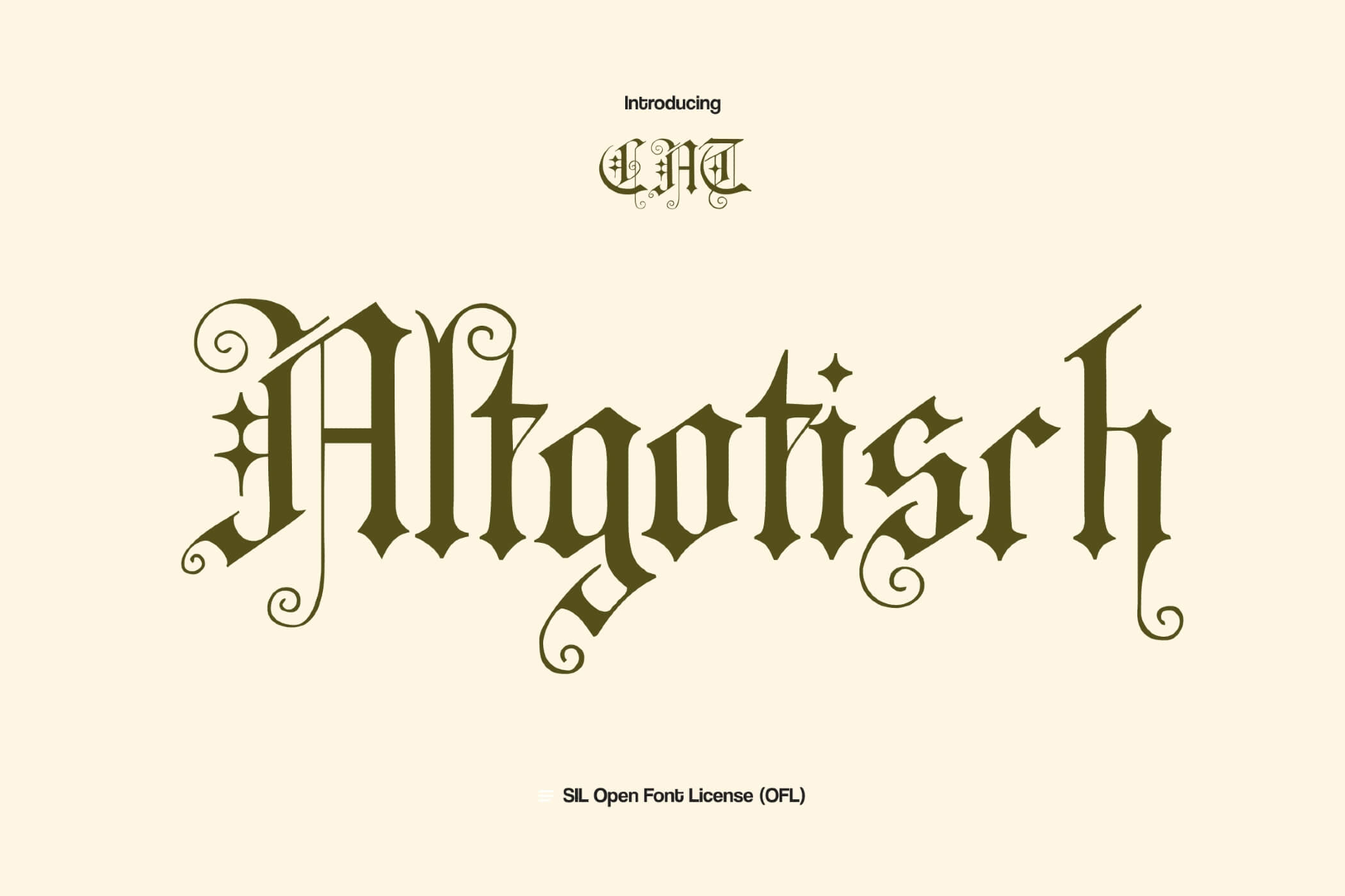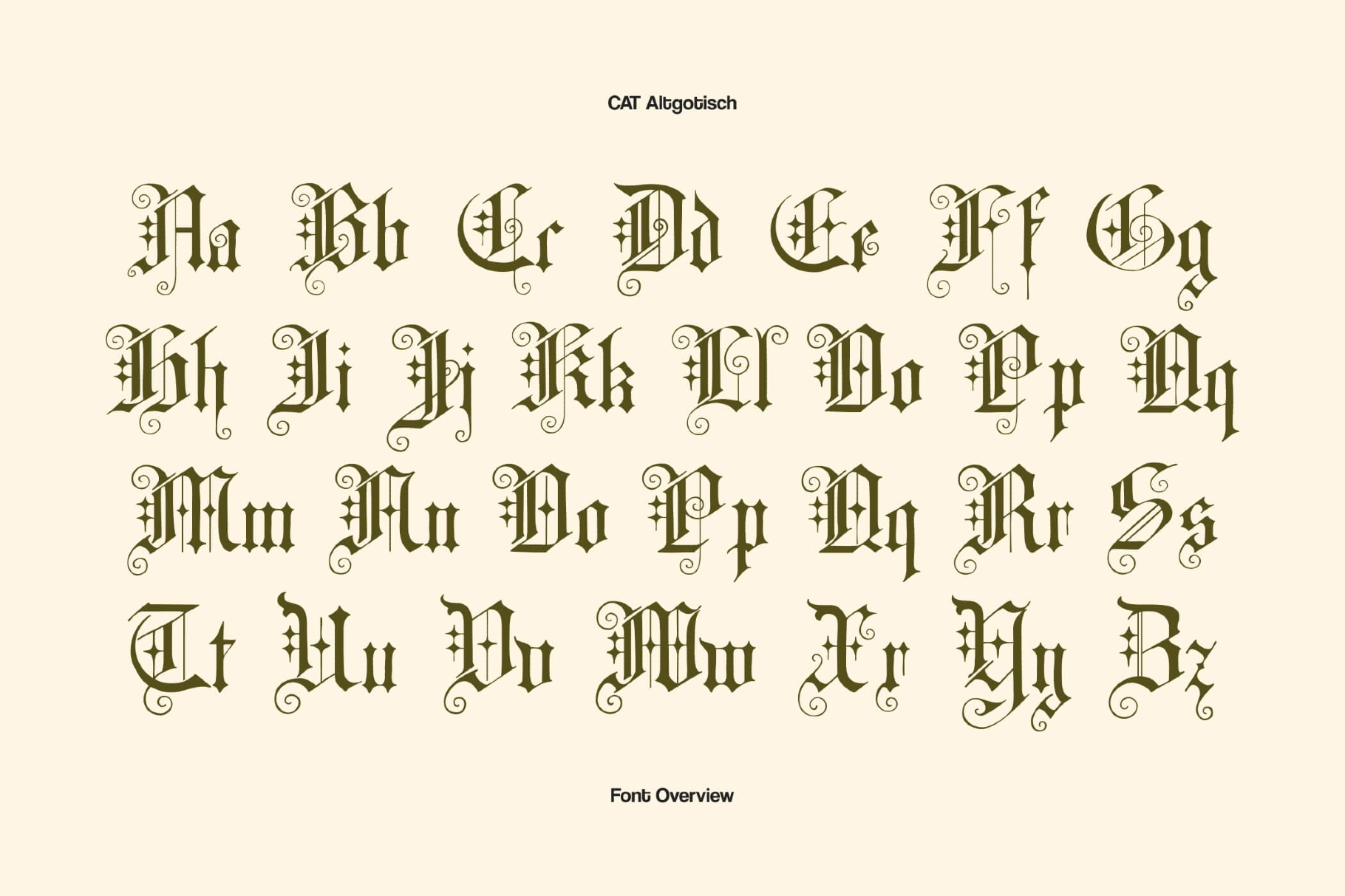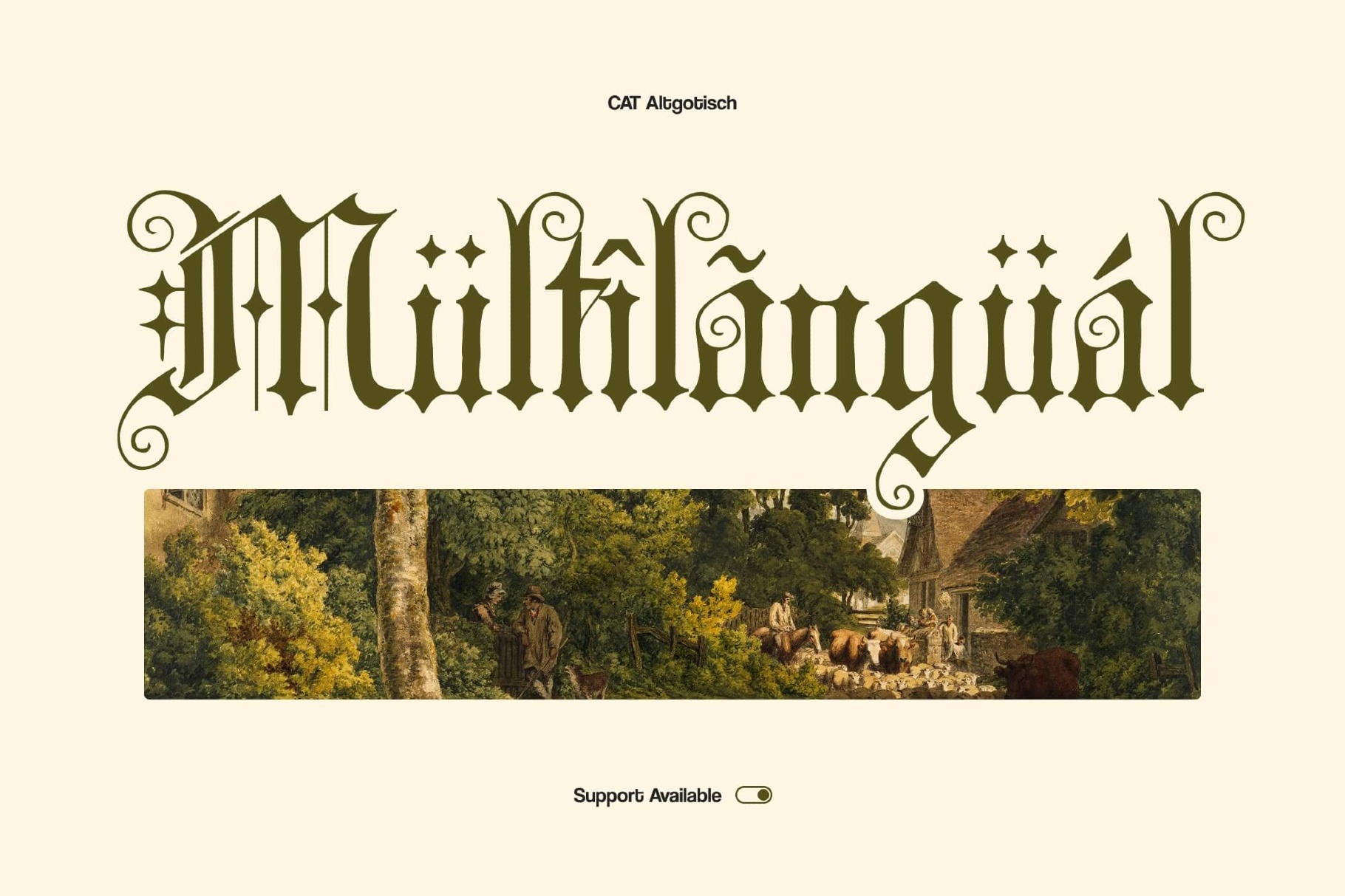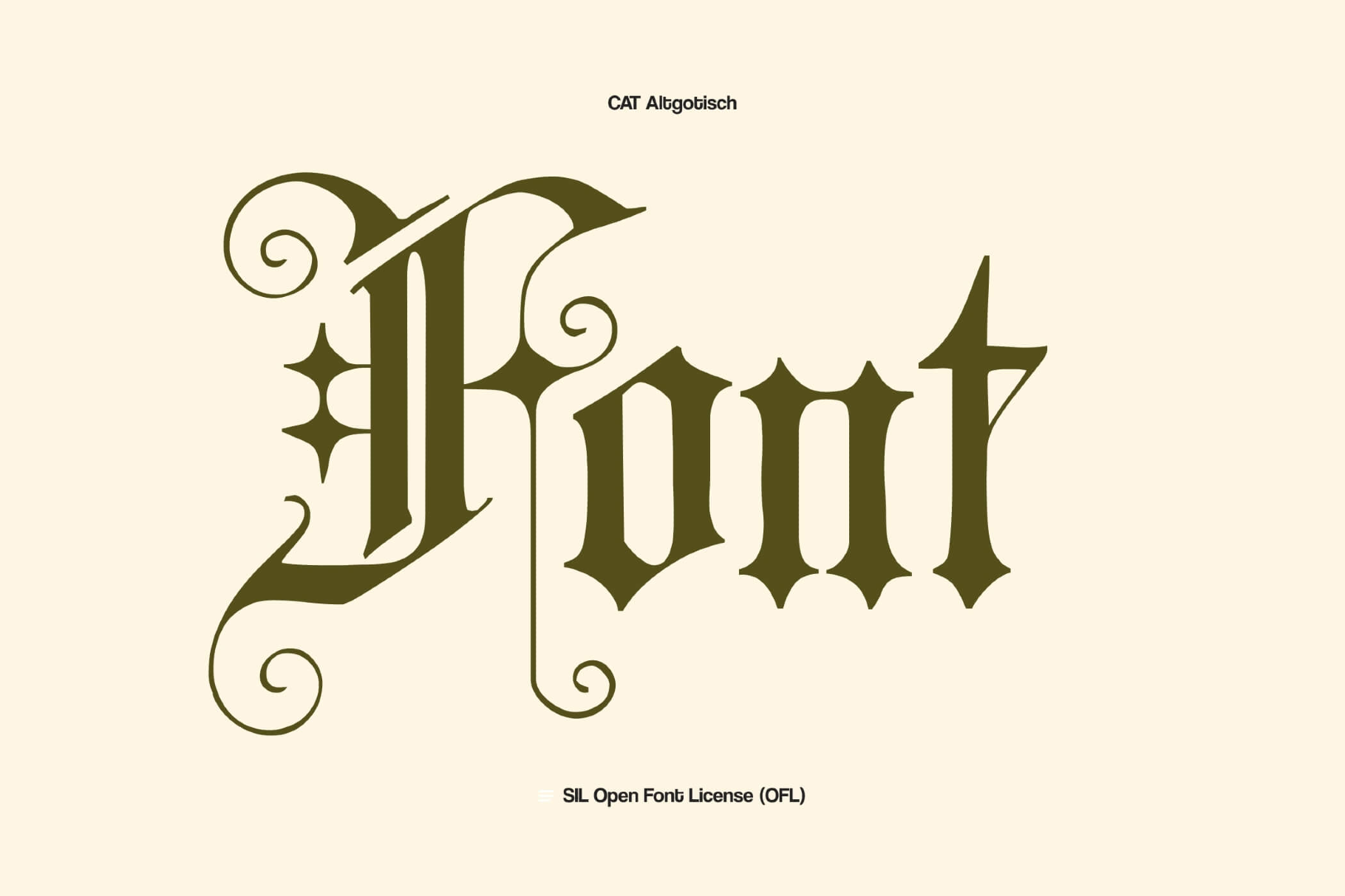
Altgotisch Blackletter Font
Altgotisch
Altgotisch follows late-19th-century decorative traditions, with elaborate curves, tight counters, and sharply broken strokes. The structure is strict and upright, while intricate terminals and blackletter flourishes highlight its richly historic appearance.
Uses:
- Book covers and title pages for historical novels, theology, and academic editions.
- Posters for classical concerts, organ recitals, and choral performances.
- Album artwork and logotypes for black metal, neofolk, and experimental music projects.
- Branding, signage, and menus for breweries, pubs, tattoo studios, and barbershops.
- Certificates, diplomas, awards, and commemorative documents.
- Labels and packaging for cigars, spirits, specialty foods, and artisan goods.
- Apparel graphics, patches, and enamel pins.